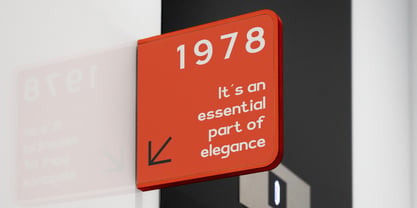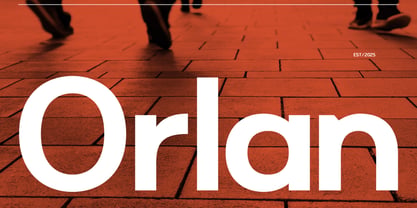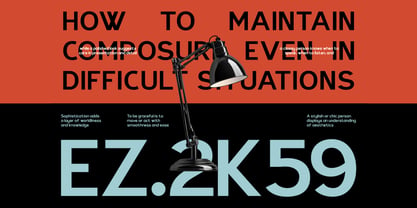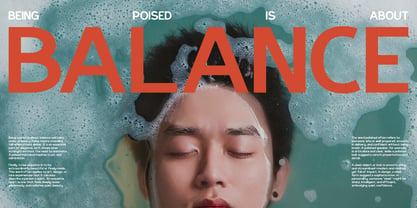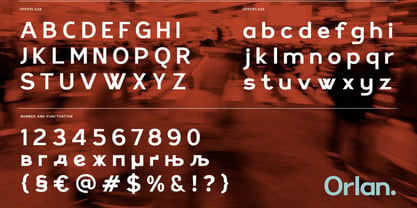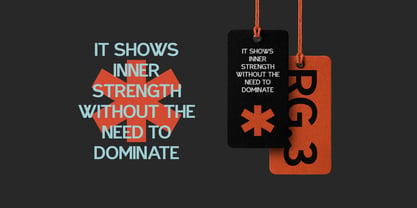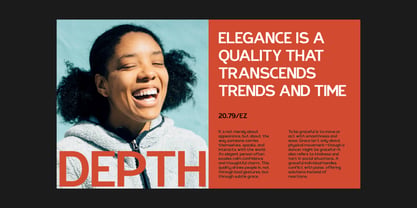
Orlan
Orlan is a bold and unapologetically modern sans-serif font that commands attention with every character. With a style that merges contemporary confidence and clean geometry, Orlan is built for high-impact communication. Its energy is distinctly urban, editorial, and minimalistic designed to make words not only legible but visually persuasive. Perfect for use in fashion magazines, lifestyle branding, bold advertising, and modern content design, this typeface has a dynamic range from loud hero titles to crisp subheadings. Relevance and use case is perfect for corporate branding, editorial design, logos, advertising, posters, headlines, magazines, UI/UX, modern design, professional use, contemporary projects, clean layouts, business cards, digital media, startup branding, bold statements, minimalist identity, typography projects, web design, signage